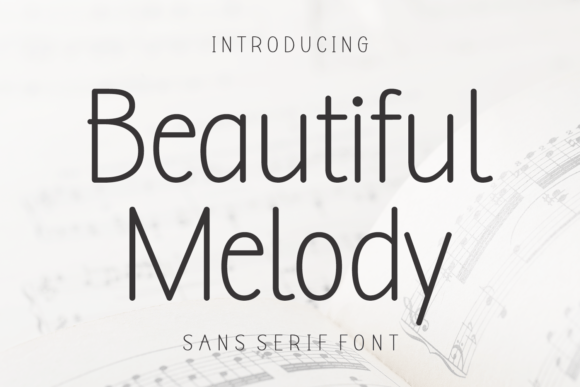
Beautiful Melody Font: Elevate Your Design with Elegance and Sophistication
In the world of typography, a beautiful font can make all the difference in creating a lasting impression. Introducing Beautiful Melody, a simple sans-serif font that embodies elegance and sophistication. Characterized by its thin characters, this font exudes a sense of delicacy and refinement, making it perfect for projects that require a graceful aesthetic.
The Characteristics of Beautiful Melody Font
Beautiful Melody is a sans-serif font that features thin characters, which give it a unique and elegant look. The font’s simplicity and clean lines make it versatile and easy to read, while its thin characters add a touch of sophistication and refinement. The font’s design is perfect for creating typographic posters, prints, and artwork that showcase its graceful aesthetic.
Elegance and Sophistication
Beautiful Melody’s elegant and sophisticated design makes it perfect for projects that require a refined aesthetic. The font’s thin characters and clean lines create a sense of delicacy and poise, adding a touch of luxury to any project. Whether you’re designing a typographic poster, a print, or an artwork, Beautiful Melody is the perfect choice for creating a lasting impression.
Uses of Beautiful Melody Font
Beautiful Melody is a versatile font that can be used in a variety of projects, including:
- Typographic posters: Create stunning typographic posters that showcase the font’s elegant and sophisticated design.
- Prints: Use Beautiful Melody for prints, such as brochures, flyers, and business cards, to add a touch of refinement and elegance.
- Artwork: Showcase the font’s graceful aesthetic in your artwork, such as illustrations, paintings, and digital art.
The Benefits of Using Beautiful Melody Font
Using Beautiful Melody font offers several benefits, including:
- Elegance and sophistication: The font’s elegant and sophisticated design adds a touch of refinement to any project.
- Versatility: Beautiful Melody is a versatile font that can be used in a variety of projects, from typographic posters to prints and artwork.
- Easy to read: The font’s clean lines and simple design make it easy to read, even at small sizes.
- Unique aesthetic: Beautiful Melody’s thin characters and elegant design create a unique aesthetic that sets it apart from other fonts.
Tips for Using Beautiful Melody Font
To get the most out of Beautiful Melody font, follow these tips:
- Use it sparingly: Use Beautiful Melody sparingly to create a lasting impression. Overusing the font can make your project look cluttered and messy.
- Pair it with other fonts: Pair Beautiful Melody with other fonts to create a unique and interesting aesthetic.
- Experiment with sizes: Experiment with different sizes to find the perfect balance between elegance and readability.
Beautiful Melody font is a beautiful and elegant sans-serif font that is perfect for projects that require a refined and sophisticated aesthetic. Its thin characters and clean lines create a sense of delicacy and poise, adding a touch of luxury to any project. With its versatility, ease of use, and unique aesthetic, Beautiful Melody is the perfect choice for designers looking to create a lasting impression.